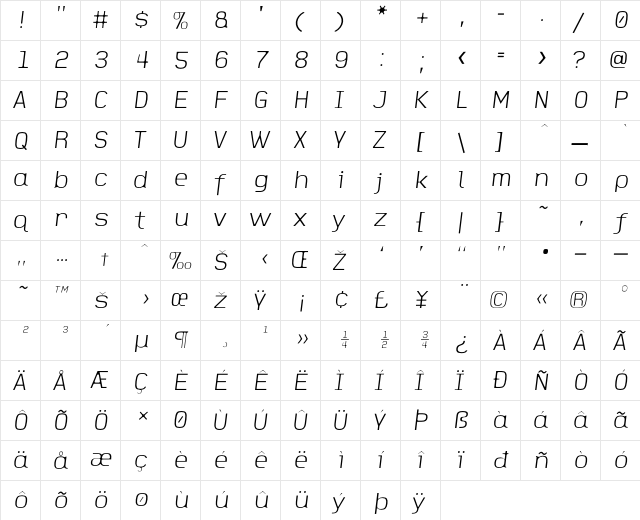
FauxCRA LightItalic Font Preview
FauxCRA LightItalic
Design Context for FauxCRA Typeface
FauxCRA is a composed and adaptable typeface that performs quietly and consistently across a wide range of design contexts. The slanted form adds forward momentum and visual energy. The delicate stroke weight brings airiness and refinement to layouts.